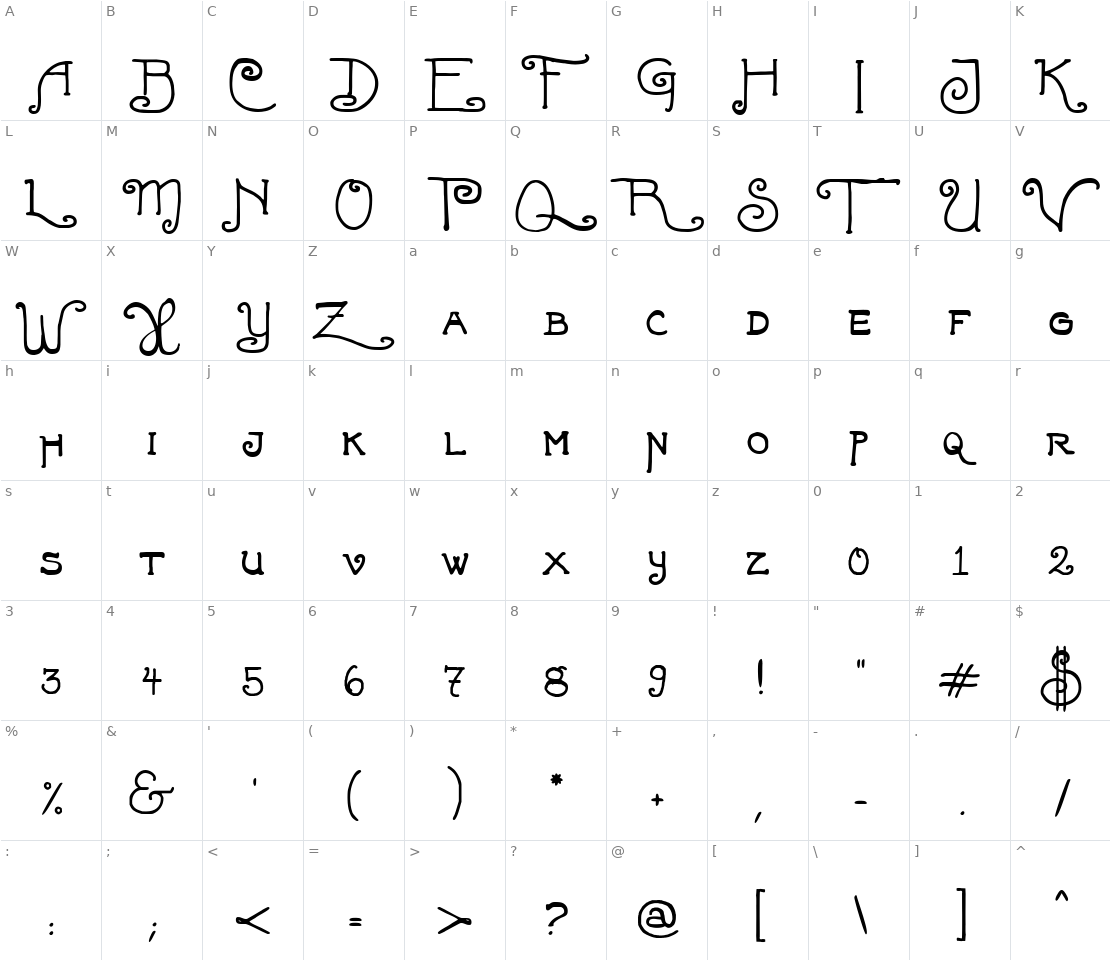
Fortunaschwein
Fortunaschwein is a quirky handwritten face from anke-art with irregular letterforms that wobble and bounce in a way that feels genuinely playful rather than artificially distressed. There's a whimsical looseness to the strokes, like someone lettering a birthday card with real enthusiasm and zero concern for consistency. Best kept to headlines and short display text where its offbeat personality can come through without wearing out its welcome.